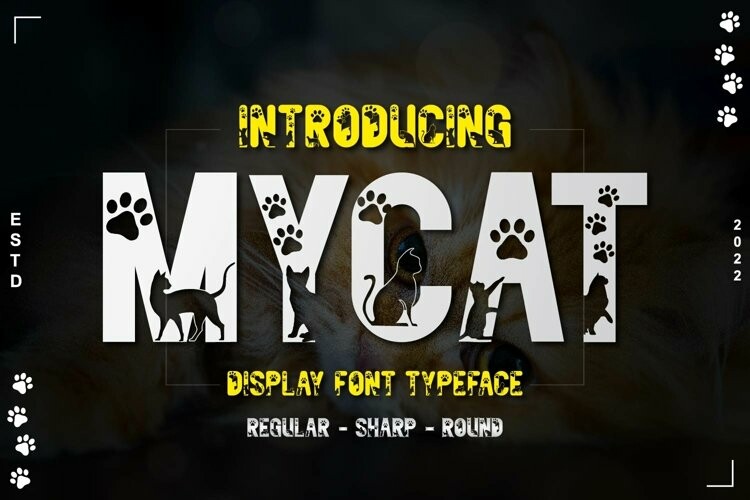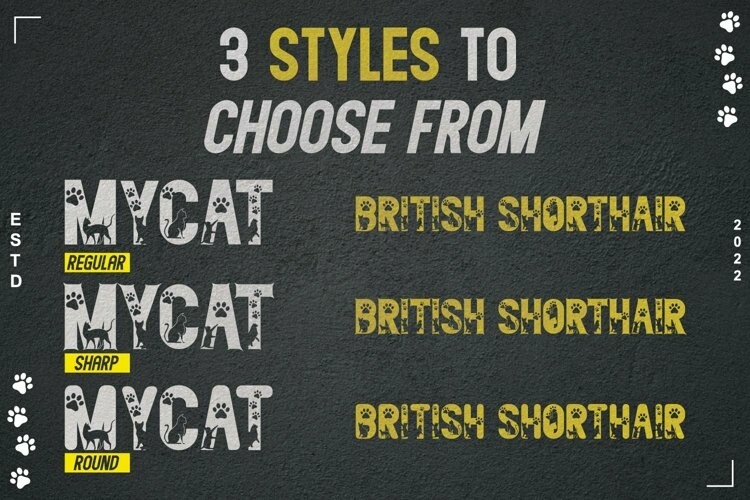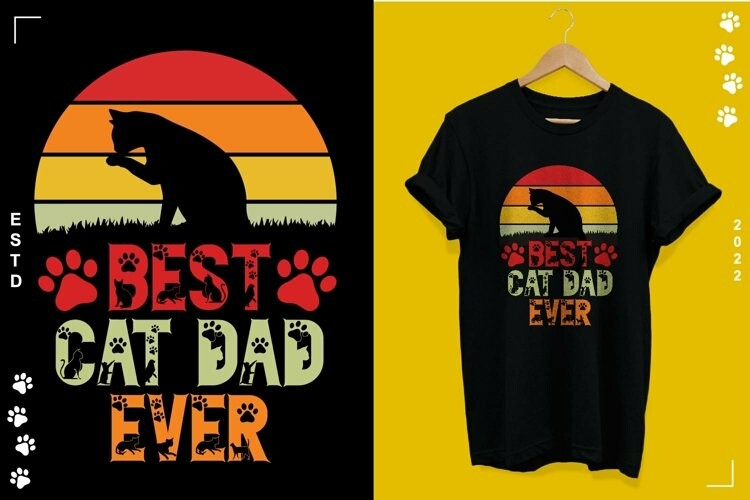
Mycat Font
Mycat FontMycat is a stylish and cute decorative font. It features Cat-themed characters that will add an incredibly joyful touch to your projects. It embodies fun and authenticity and is the perfect choice for children’s activities, crafts or t-shirt designs.